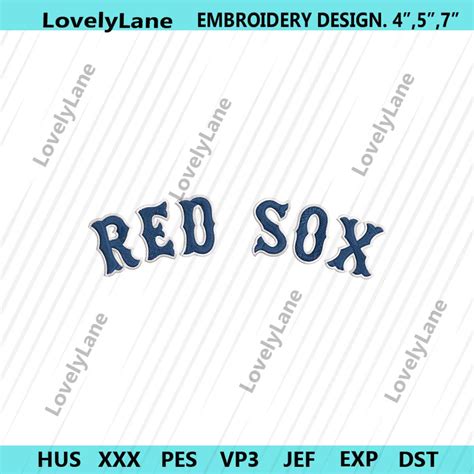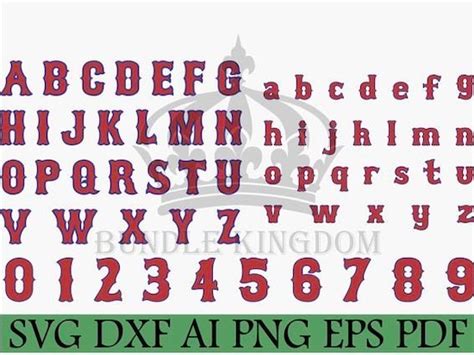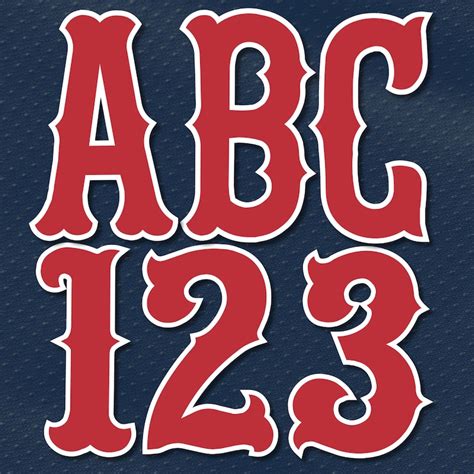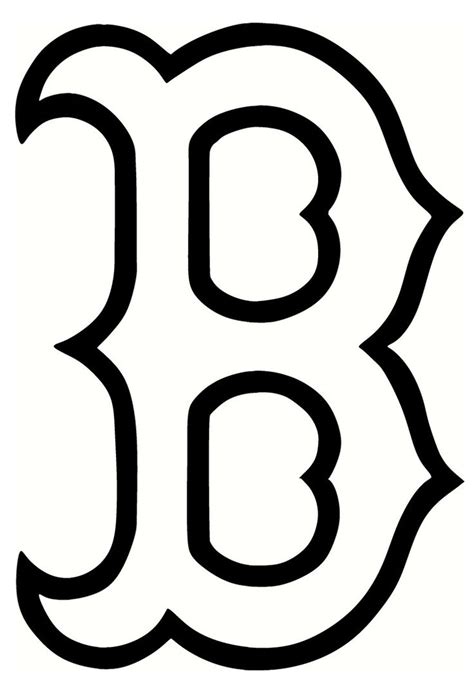
RED SOX FONT
The Red Sox Font is an iconic and distinctive design that has become synonymous with one of the most historic baseball teams in the world. This font is an integral part of the team's branding and has been a key element in their visual identity for many years. The font itself is a unique and modern take on a classic serif style, with a bold and striking appearance that captures the energy and passion of the Boston Red Sox.
The design of the Red Sox Font incorporates elements that reflect the team's rich history and tradition. It features a strong and sturdy structure, with sharp serifs and a distinctive 'X' height, creating a powerful and memorable look. This font is not just a simple logo or design; it is a carefully crafted typographic masterpiece that has been an essential part of the team's visual identity.
One of the key benefits of the Red Sox Font is its versatility. It can be used in a wide range of applications, from team logos and merchandise to digital media and print materials. Its unique style ensures that it stands out and captures attention, making it an ideal choice for promoting the team and its brand. The font's modern twist on a classic serif style also allows it to be used in various contexts, from formal team communications to casual fan engagement.
In summary, the Red Sox Font is an iconic and distinctive design that has become an integral part of the Boston Red Sox's visual identity. Its unique style, rich history, and versatility make it a powerful tool for promoting the team and its brand. This font is a testament to the team's commitment to tradition and innovation, and it continues to be a beloved and recognizable element of the Red Sox experience.